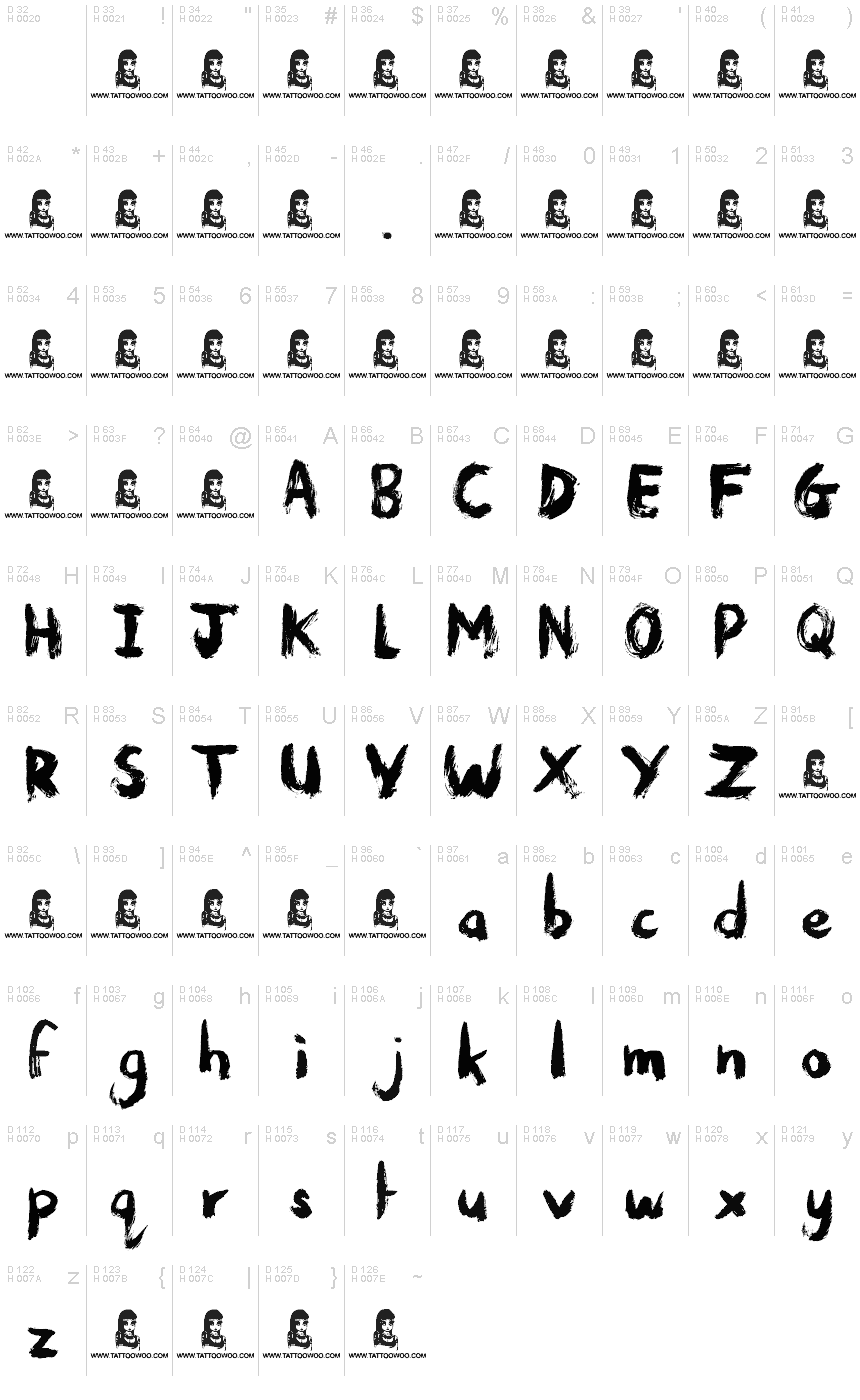
Messy Artist
Messy Artist is a captivating brush-style font that exudes a raw, expressive energy. Designed by Jonathan Stephen Harris, this typeface embraces the imperfections of handwritten lettering, creating a dynamic, artisanal aesthetic. The bold, undulating strokes and irregular edges convey a sense of spontaneity and individuality, making it an ideal choice for branding, packaging, and editorial layouts that seek to showcase a distinct, artsy vibe.
Its versatility extends beyond purely creative applications, as "Messy Artist" can also lend a touch of personality to invitations, posters, and social media content. The font's unique character adds a touch of whimsy and personality to any design, making it a valuable tool for those seeking to craft memorable, authentic visual experiences.